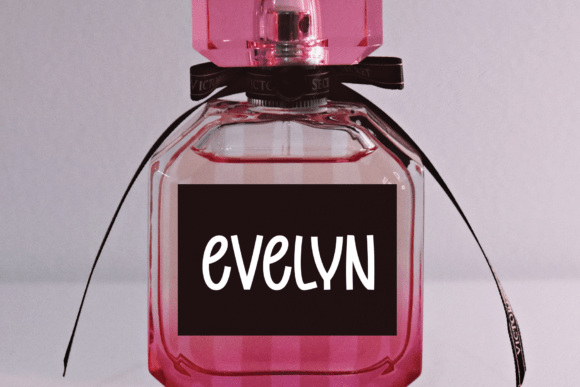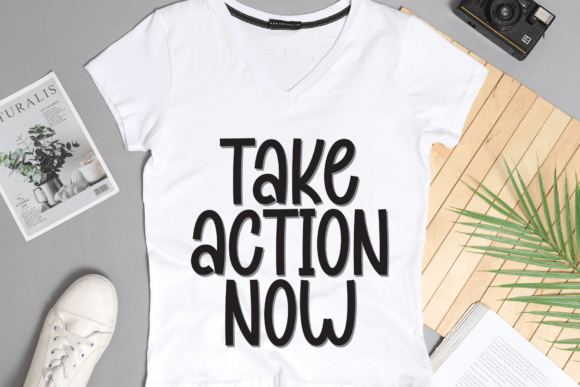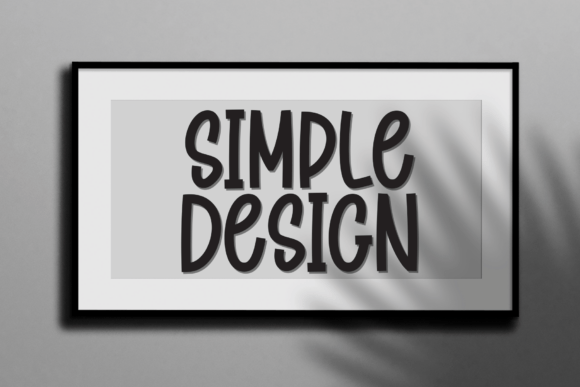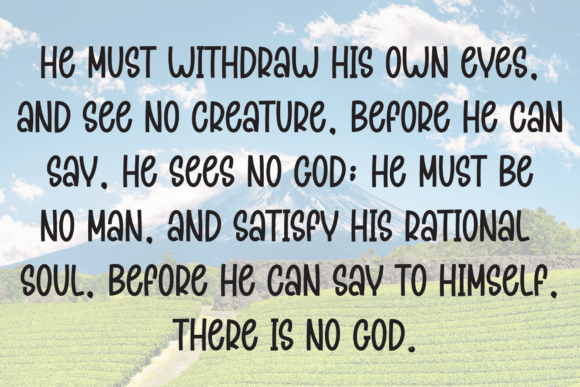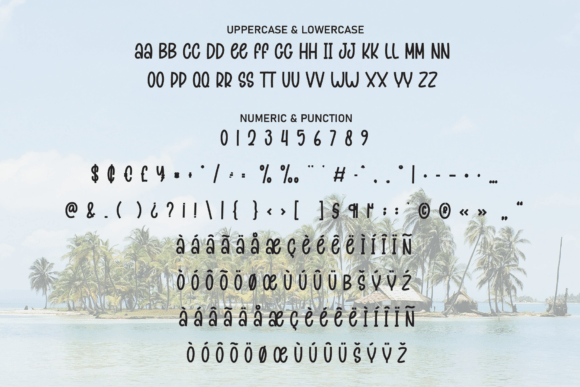
Introducing Gemstone Island Font: A Handwritten Display Font with Personality and Charm
Are you tired of using the same old fonts for your designs? Look no further! Gemstone Island Font is a display handwritten font that bursts with personality and charm, capturing the warmth of real handwriting with bold, eye-catching strokes. Designed to stand out while maintaining a natural flow, it’s perfect for logos, social media graphics, posters, and anything that calls for a personal, expressive touch.
What Makes Gemstone Island Font Special?
Gemstone Island Font is a unique and creative font that brings a touch of authenticity and flair to your designs. Its bold and expressive strokes make it perfect for designers and crafters who want to add a personal touch to their work. Whether you’re crafting a heartfelt quote or branding a creative product, this font is sure to make your design stand out.
Gemstone Island Font is versatile and can be used for a variety of design projects, including:
- Logos: Create a unique and memorable logo for your business or brand with Gemstone Island Font.
- Social Media Graphics: Add a personal touch to your social media graphics, such as Facebook posts, Instagram stories, and Twitter headers.
- Posters: Create eye-catching posters for events, promotions, or advertisements.
- Branding: Use Gemstone Island Font to brand your creative products, such as handmade crafts, jewelry, or artwork.
Why Choose Gemstone Island Font?
There are many reasons why you should choose Gemstone Island Font for your design projects. Here are a few:
- Unique and Creative: Gemstone Island Font is a one-of-a-kind font that will make your design stand out from the crowd.
- Easy to Read: Despite its bold and expressive strokes, Gemstone Island Font is easy to read and understand.
- Versatile: This font can be used for a variety of design projects, from logos to posters.
- Authentic: Gemstone Island Font captures the warmth and authenticity of real handwriting, making it perfect for designs that require a personal touch.
Gemstone Island Font is a unique and creative display handwritten font that bursts with personality and charm. Its bold and expressive strokes make it perfect for designers and crafters who want to add a personal touch to their work. Whether you’re crafting a heartfelt quote or branding a creative product, this font is sure to make your design stand out. So why wait? Download Gemstone Island Font today and start creating stunning designs that capture the warmth and authenticity of real handwriting!
- Display handwritten font
- Bold and expressive strokes
- Perfect for logos, social media graphics, posters, and more
- Unique and creative
- Easy to read
- Versatile
- Authentic and personal touch